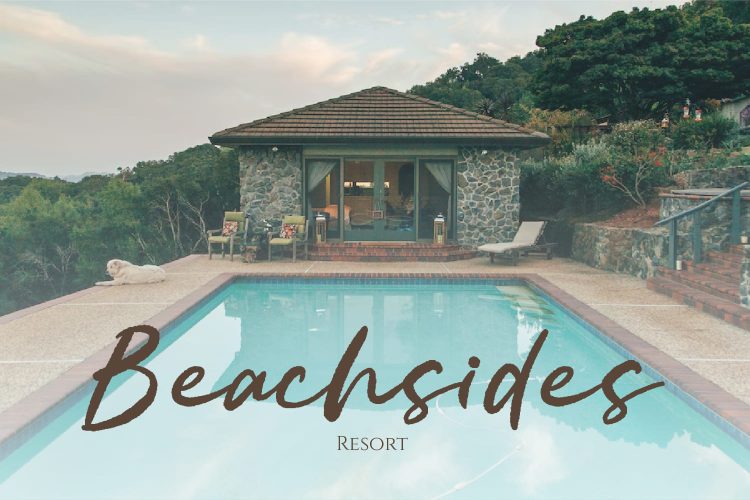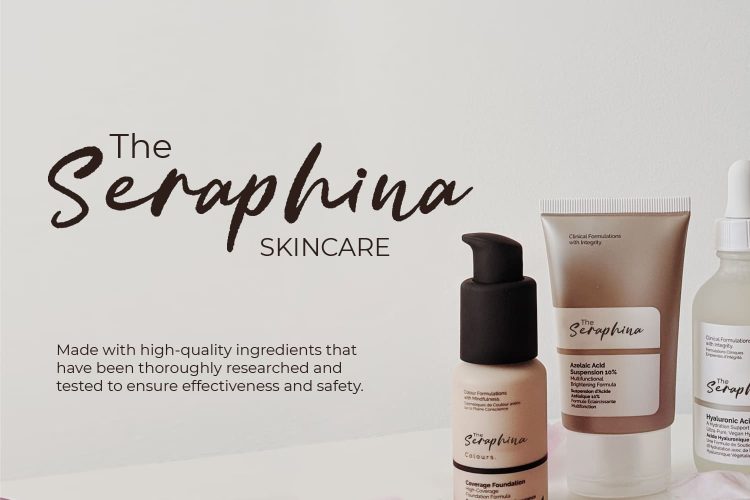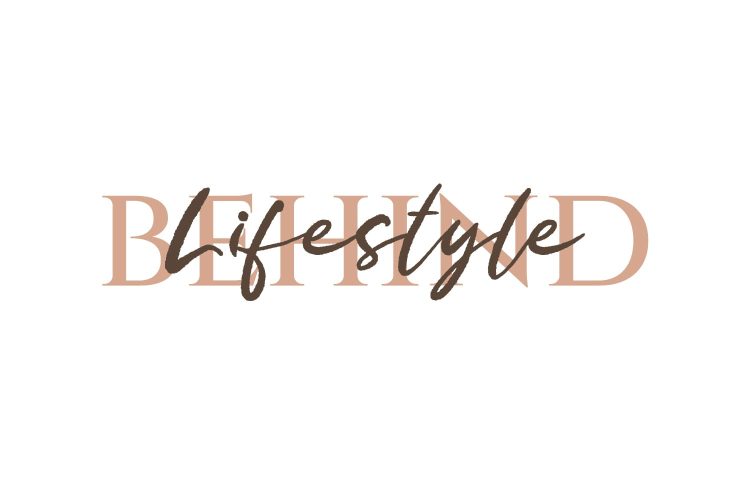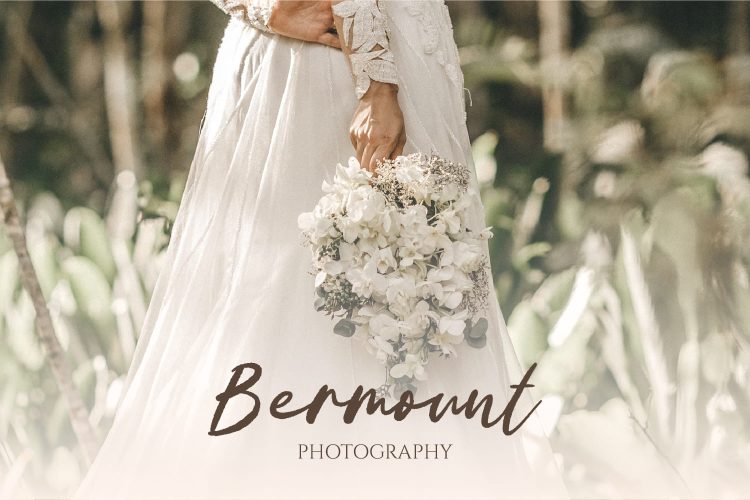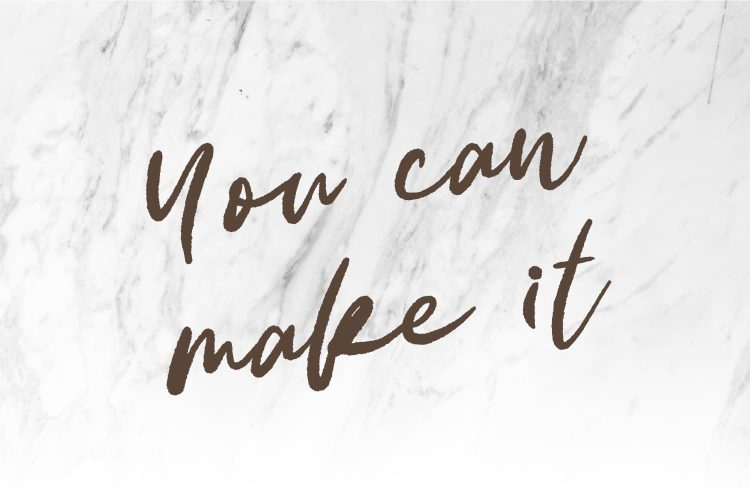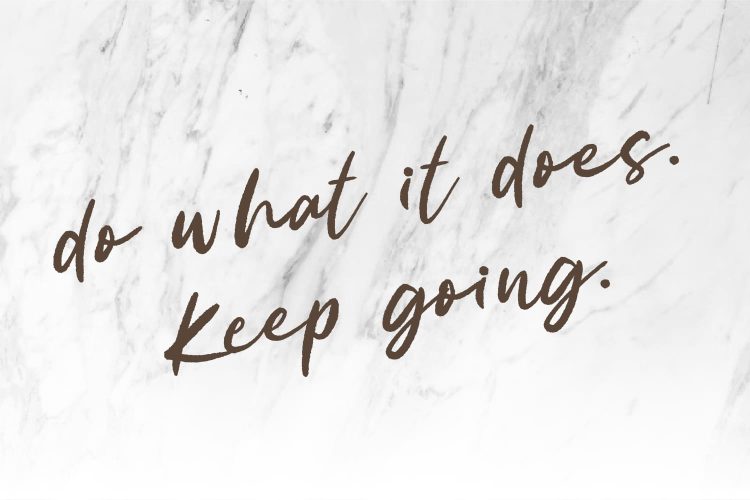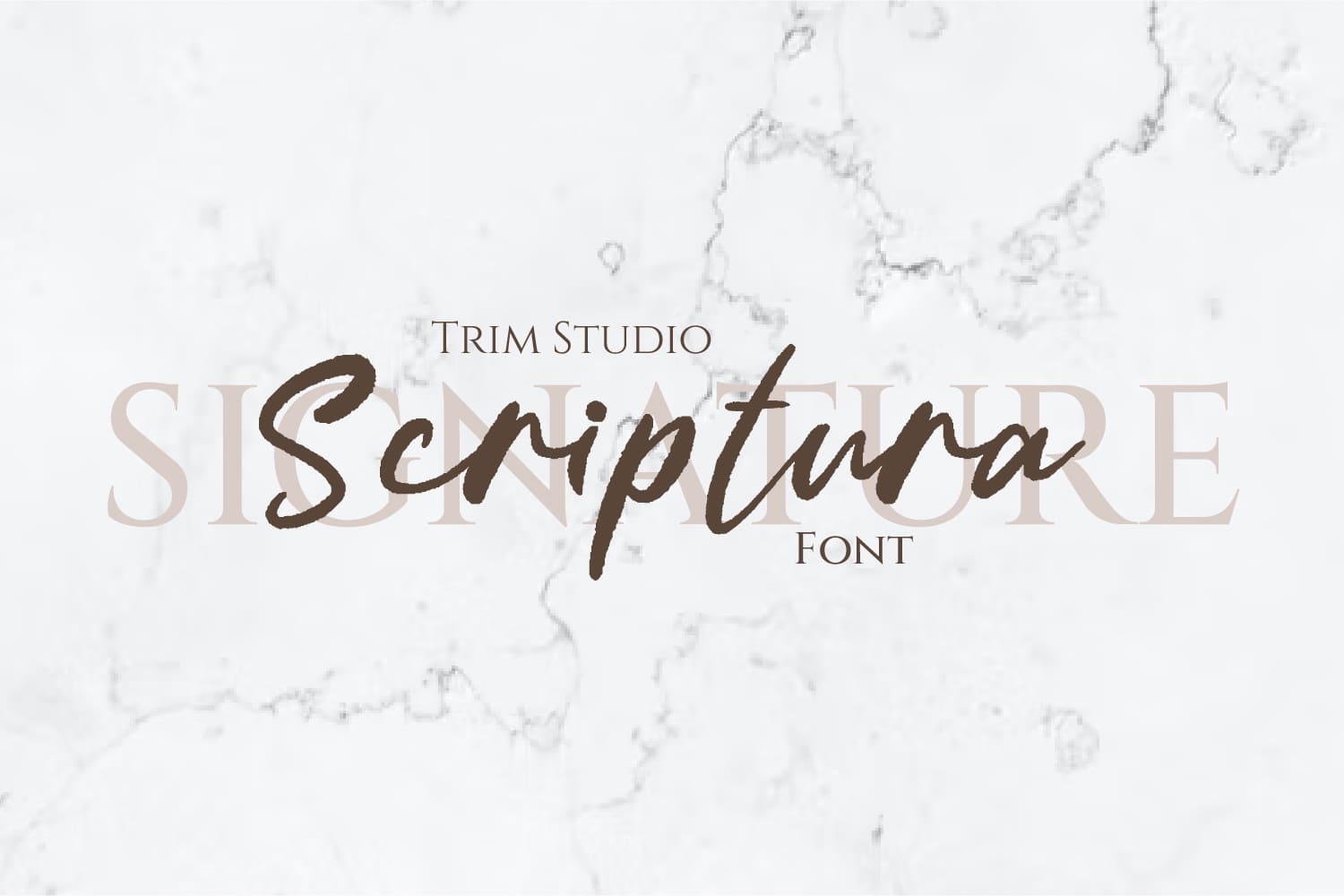
Scriptura is a simple script handwritten font that features flowing and elegant letterforms. It is characterized by its cursive style and flowing strokes, which give it a classic and timeless feel. The font’s letters are joined together in a natural way, creating a smooth and cohesive look. Keep in mind that the font is PUA encoded, meaning that you can access all delightful glyphs and swashes effortlessly.